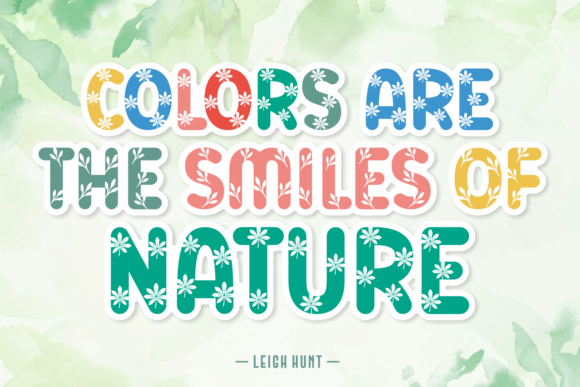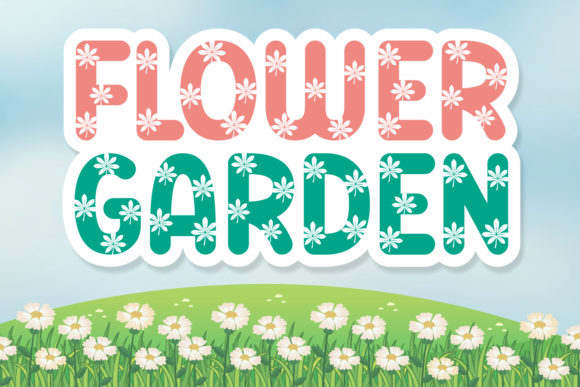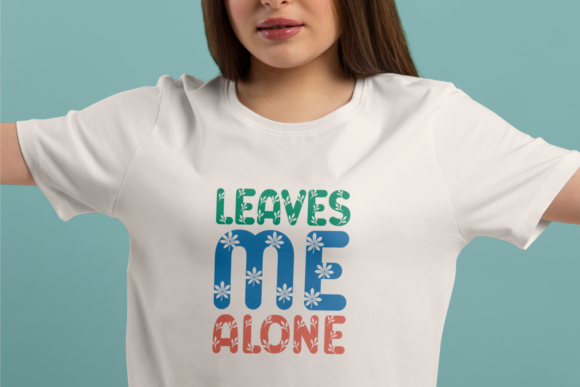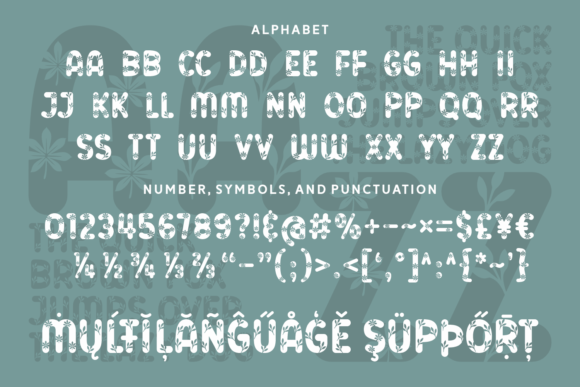
Introduction to Elona Green Font
Have you ever found yourself in a creative moment where you’re brainstorming ideas for a new project, and suddenly, a burst of inspiration hits you? The colors, the shapes, the textures – everything comes together in perfect harmony. For designers, this moment is what makes it all worth it. And, with the right design resources, that spark can ignite into something truly magical. That’s where the Elona Green Font comes in – a stunning, nature-inspired typeface that’s sure to elevate your creative projects to the next level.
With its beautiful, high-quality characters featuring flowers and leaves, the Elona Green Font is a valuable addition to any designer’s toolkit. Whether you’re working on a title, greeting card, or art print, this font is sure to add a touch of whimsy and charm. And, with its transparent background, it’s easy to use and integrate into your designs. So, why not give it a try and see how it can help bring your creative visions to life?
Key Features of Elona Green Font
- High-quality design resource ideal for creative projects and designs.
- Designed to be versatile and suitable for a wide range of creative projects, from digital art to print designs.
- Unique characteristics include a modern and elegant aesthetic, making it a great addition to any design resource collection.
Honest Review: Elona Green Font
As a designer, I’m always on the lookout for high-quality design resources that can elevate my creative projects. The Elona Green Font is one such resource that caught my attention.
What works well: ✨ The font is incredibly versatile and can be used for a wide range of creative projects, from logos to typography-heavy designs. The transparent background makes it easy to integrate with other design elements. The font’s modern and elegant design aesthetic makes it perfect for any design project.
However, there are some limitations: ⚠️ The font’s limited character set may be a drawback for some designers. It’s also not suitable for use in situations where a lot of text is required, as it may become too repetitive.
Overall impression: I’m really impressed with the Elona Green Font. Its versatility, modern design aesthetic, and high-quality design make it a valuable resource for any designer. With its transparent background and free download, it’s a great addition to any design library.
Pros:
- Modern and elegant design aesthetic
Cons:
- Limited character set
- Not suitable for large text-based projects
How to Use Elona Green Font
The Elona Green Font is a high-quality design resource that can be used for a wide range of creative projects. This font features a transparent background, making it easy to layer and combine with other design elements.
Tips for Getting the Most Out of Elona Green Font
To get the most out of the Elona Green Font, try combining it with other design elements, such as images and graphics, to create a visually appealing and cohesive design. You can also experiment with different font sizes and styles to add emphasis and interest to your text.
The Elona Green Font is a versatile design resource that can be used for a wide range of creative projects, including logos, brochures, and marketing materials. Its transparent background and high-quality design make it a great choice for designers who want to create professional-looking designs without a lot of hassle.